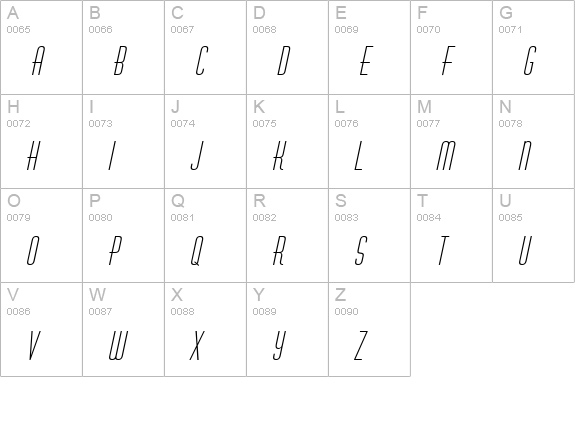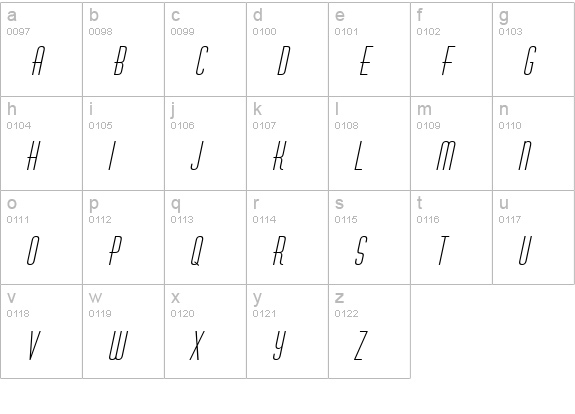
Hustle Italic Font Details
Hustle Italic is a distinctive, italic variant in the Hustle typeface family \xE2\x80\x94 well suited to design and typography projects.
Hustle Italic font is a sleek and modern typeface designed for those who want to add a touch of sophistication to their projects. Its stylish and elegant curves make it perfect for a wide range of design applications, from branding to editorial design. The italicized letters give a sense of movement and dynamism, making your text stand out with a subtle yet impactful flair. Best of all, Hustle Italic font is available for free download at FontsMarket.com. With its unique blend of sophistication and style, this font is sure to elevate your designs and leave a lasting impression. Don't miss out on the opportunity to enhance your projects with this versatile and eye-catching typeface. Download Hustle Italic font today and add a touch of elegance to your work.